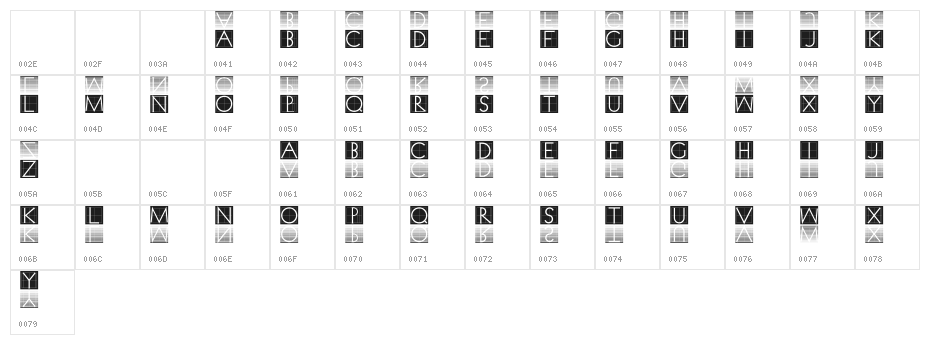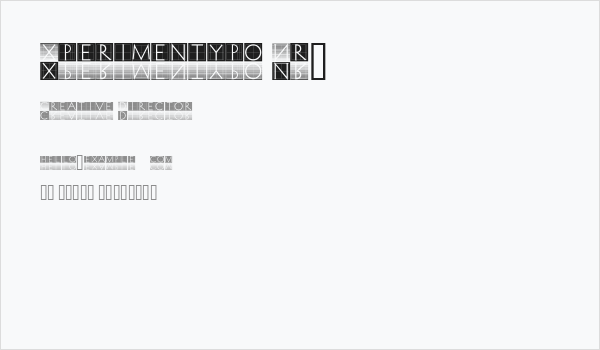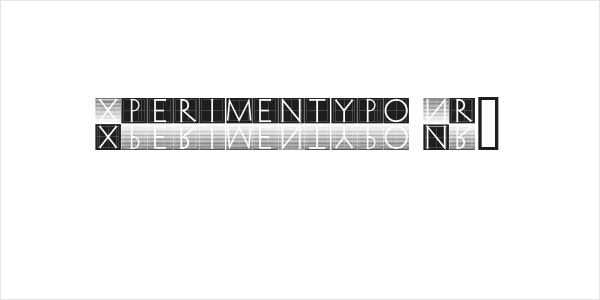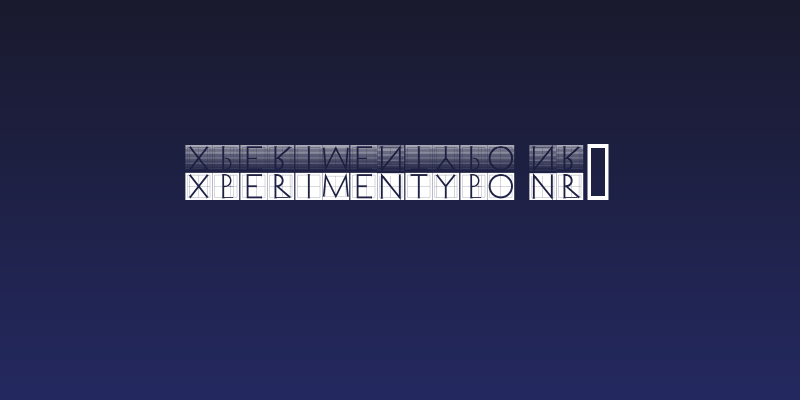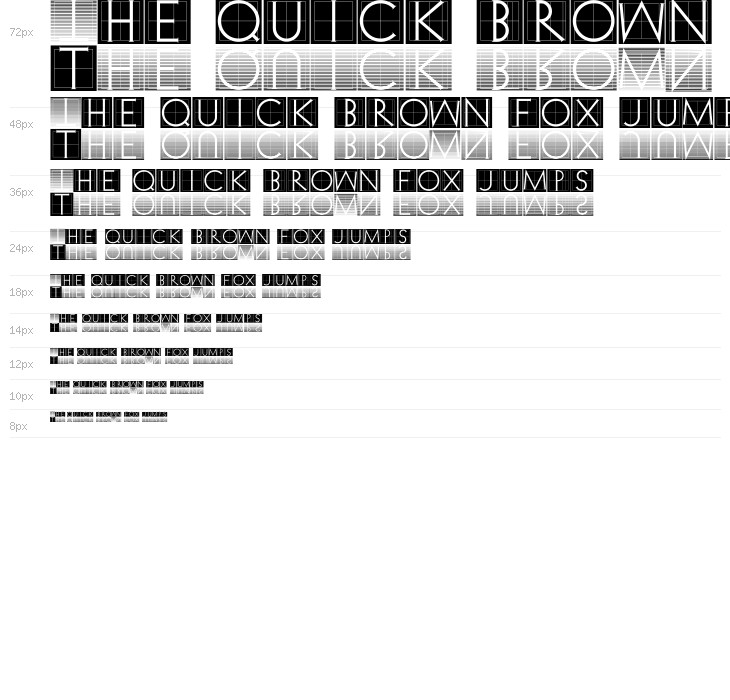
Xperimentypo Nr1 Font
Xperimentypo Nr1 Description
This font features a highly geometric and experimental design, characterized by its use of lines and negative space to form each letter. The uppercase letters are constructed with a series of parallel lines and intersecting shapes, creating a sense of depth and complexity. The font is visually striking, with a modern and avant-garde aesthetic that challenges traditional typography norms. Its unique structure makes it suitable for creative and artistic projects where a bold statement is desired. The font's design emphasizes symmetry and precision, with each character meticulously crafted to maintain a cohesive look across the set.
| Use Case | Logos, Headlines, Artistic Displays |
| Proposed Projects | Ideal for avant-garde posters, modern art installations, experimental branding, and creative digital media. |